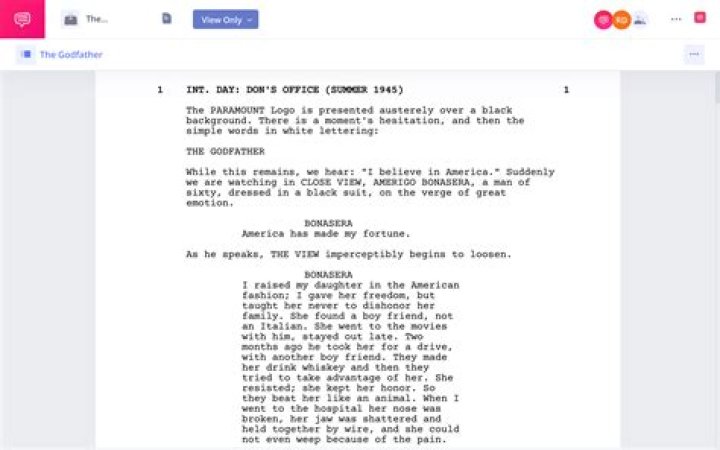
Correspondingly, what font is used in movies?
Other typefaces used in the movie: Beaufort, FF Din, Old English, Münchner Feature, Trajan, Russian and Cheltenham.
What is a good movie font?
Here are the 9 Best Picture nominees, along with our best guess for the font used in their title design:- The Shape of Water - MB Vintage Medium.
- Lady Bird - Amador Regular.
- Get Out - Helvetica Neue 93 - Black Extended.
- Dunkirk - Formula Extra Bold.
- Darkest Hour - Rama Gothic M Heavy.
What font does Netflix use?
GraphiqueWhat font is used in movie subtitles?
VerdanaWhat is a good space font?
Voyager is one of the most creative space fonts on our list. It features a design with a mix of both modern and retro elements that pays homage to Voyager 1. The sans-serif font includes alternate characters, multilingual support, and more. It's great for crafting tech-related logos, business cards, and posters.What font is the most professional?
- Calibri. Having replaced Times New Roman as the default Microsoft Word font, Calibri is an excellent option for a safe, universally readable sans-serif font.
- Cambria. This serif font is another Microsoft Word staple.
- Garamond.
- Didot.
- Georgia.
- Helvetica.
- Arial.
- Book Antiqua.
What font does YouTube use for subtitles?
Roboto MediumWhat is the alien font?
Helvetica BlackWhat is the Nickelodeon font?
About Nickelodeon FontThe current logo is a custom drawn logotype in orange. A font named Nickelodeon TV was created by Juan-e-b to imitate the letters in this logotype. You can download the font for free here.
The main reason that they were not used, is that silent films were translated into many languages and exported all over the world. It would have been a lot of work to superimpose subtitles of different languages over a changing scene.How did silent films start?
A silent film is a film with no accompanying, synchronized recorded spoken dialogue. The technology for silent films was invented around 1860, but remained a novelty until around 1880 - 1900, when films on a single reel became easily produced.Why are silent films important?
Silent films were responsible for the birth of continuity editing which is essential to storytelling and narrative economy. It evolves a set of principles such as the use of ellipsis, the use of diegetic or extradiegetic sound, flashback, match on action, 30-degree rule, 180-degree rule and so forth.Why did silent films have music?
The earlier silent films were accompanied by a phonograph recording or, more commonly, live music, such as a guitarist or pianist. Just like contemporary film, music was seen as essential to the viewing experience, reinforcing the atmosphere or mood of a film as well as providing the audience with emotional cues.Who invented silent films?
Thomas EdisonWhy were early silent films not really silent?
Showings of silent films usually were not actually silent: they were commonly accompanied by live music. Early in the development of the motion picture industry, it was learned that music was an essential part of any movie, as it gave the audience emotional cues for the action taking place on the screen.How many silent films are lost?
July 6, 1928Why are black and white films sped up?
It depends on what black and white footage you're looking at. In the very early days, motion picture cameras were cranked by hand. In the very early days, motion picture cameras were cranked by hand. Turning the crank ran the film through the camera, so keeping a steady speed was an important skill.What is considered the most influential silent film ever made?